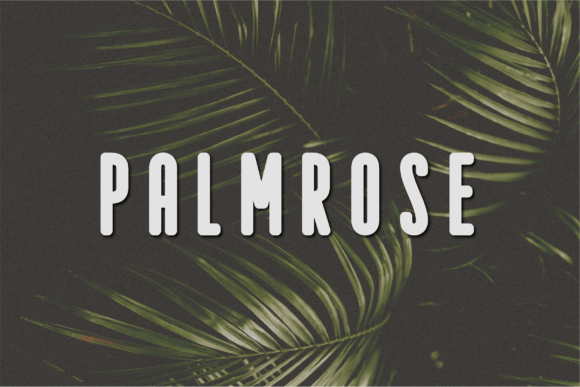
Unleash the Enchantment of Palmrose Font: The Epitome of Grace and Elegance for Your Digital Creations
Journey into the world of Palmrose Font, a captivating sans serif font that exudes grace, elegance, and timeless beauty. Its meticulously crafted characters, each a masterpiece of digital artistry, will elevate your designs to new heights of sophistication and allure.
Immerse yourself in the versatility of Palmrose Font, seamlessly adapting to a myriad of creative endeavors. Whether you're crafting logos, designing wedding invitations, creating eye-catching advertisements, or composing captivating quotes, Palmrose Font will effortlessly transform your words into works of art.
Discover the magic of Palmrose Font in print, where its refined lines and delicate curves dance across the page, leaving a trail of elegance and charm. Elevate your magazines, brochures, and other printed materials with the timeless beauty of Palmrose Font, ensuring a lasting impression on your readers.
Prepare to be captivated by Palmrose Font's innate ability to breathe life into your most creative ideas. Witness how effortlessly it transforms ordinary text into captivating headlines, enchanting logos, and unforgettable designs. Unleash your imagination and let Palmrose Font guide you to a realm of boundless creativity.